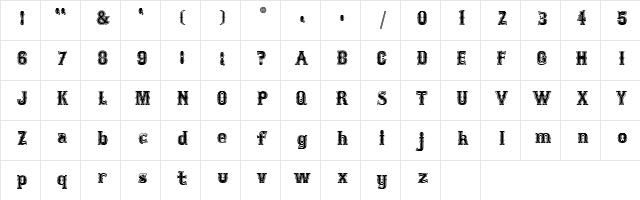
Bosox SemiBold Regular
Design Context for Bosox SemiBold
Bosox SemiBold is a composed and adaptable typeface that performs quietly and consistently across a wide range of design contexts. Its bold stroke weight gives it real presence on the page.